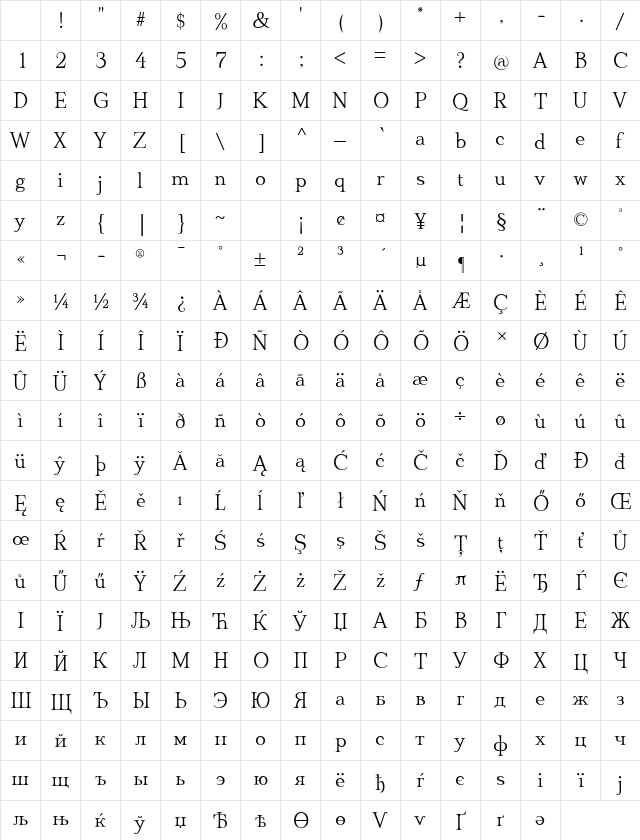
DionisiiOTF Lt is a composed and adaptable typeface that performs quietly and consistently across a wide range of design contexts. Its slender proportions lend an understated elegance to any composition.